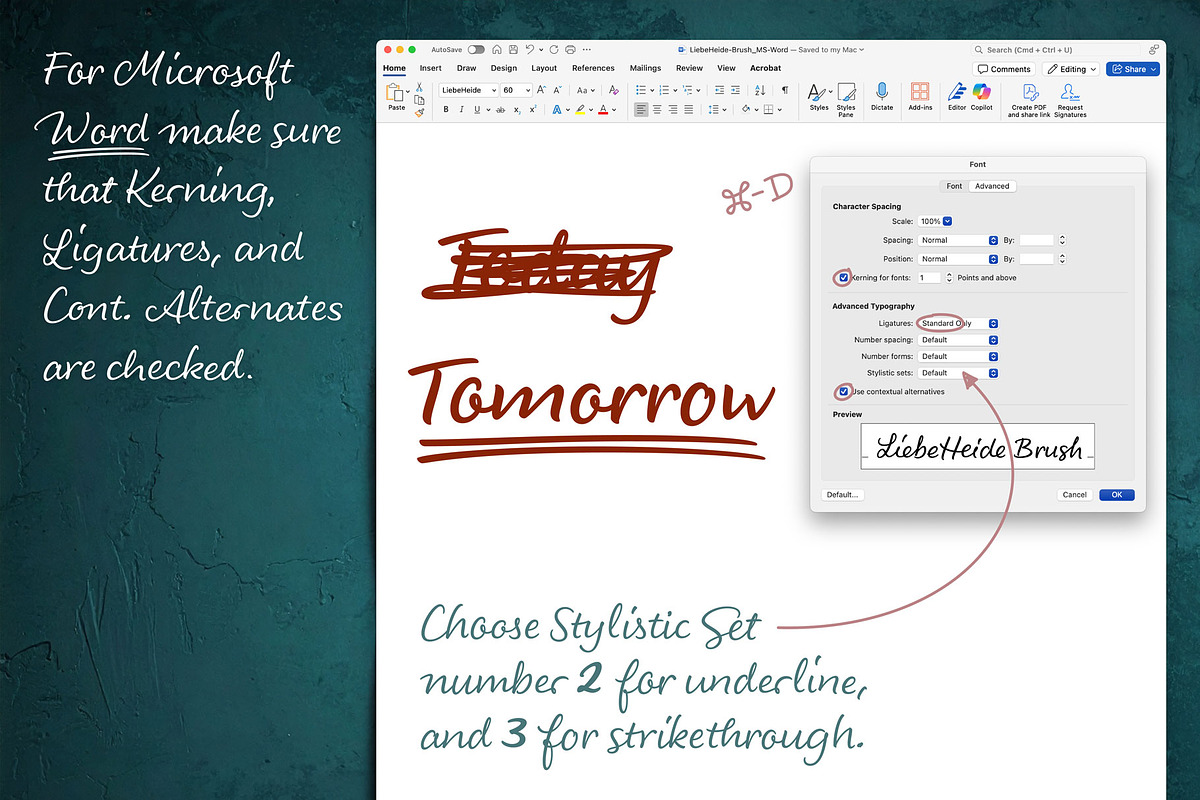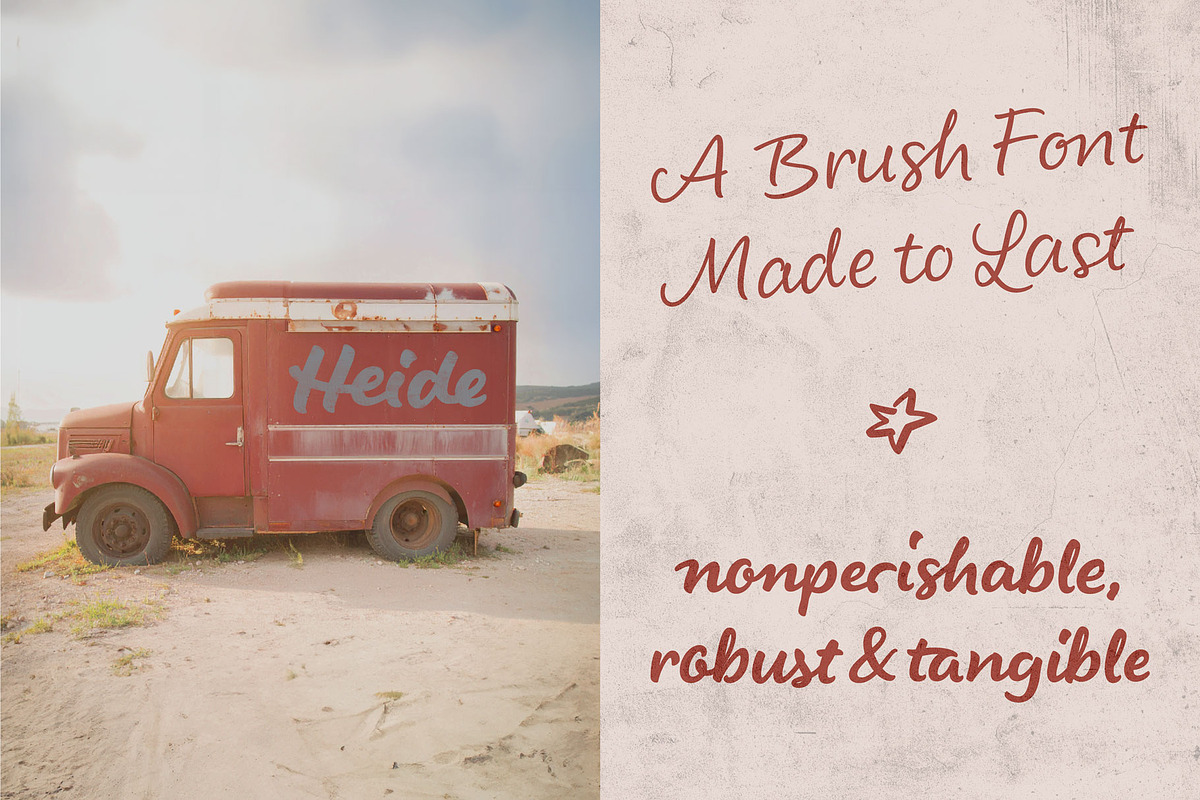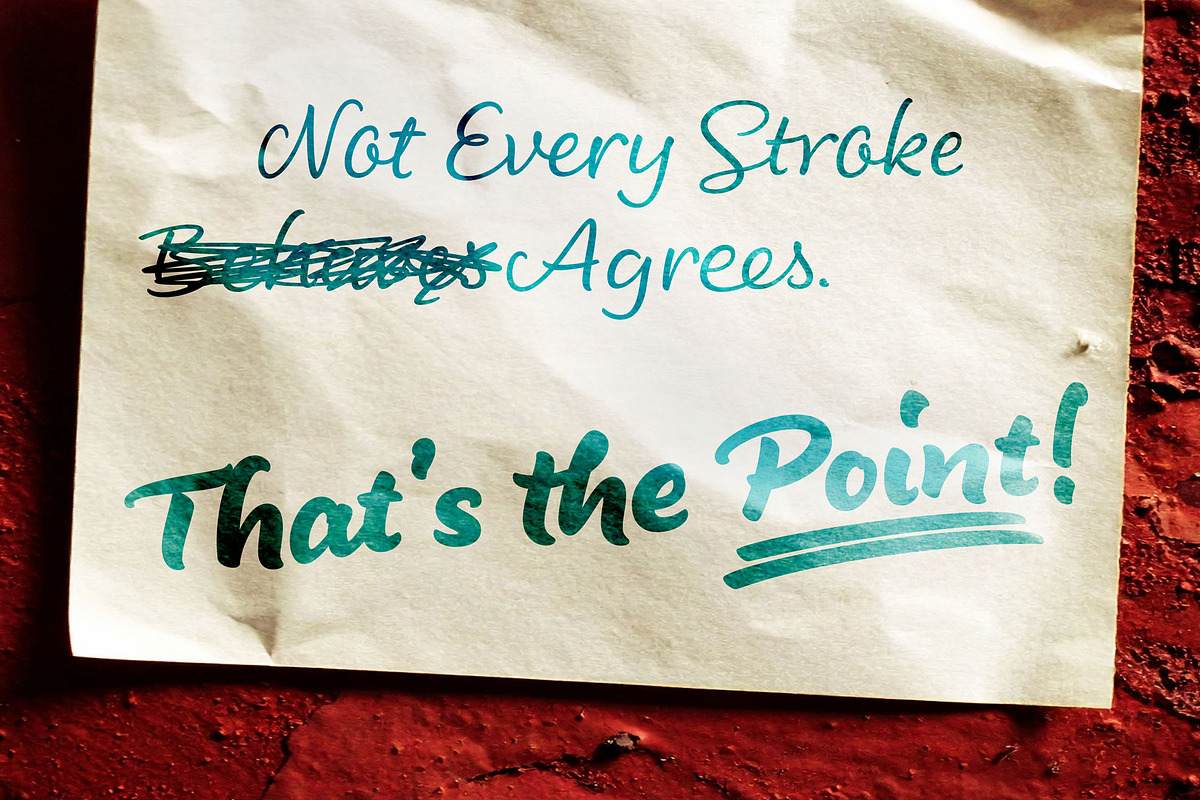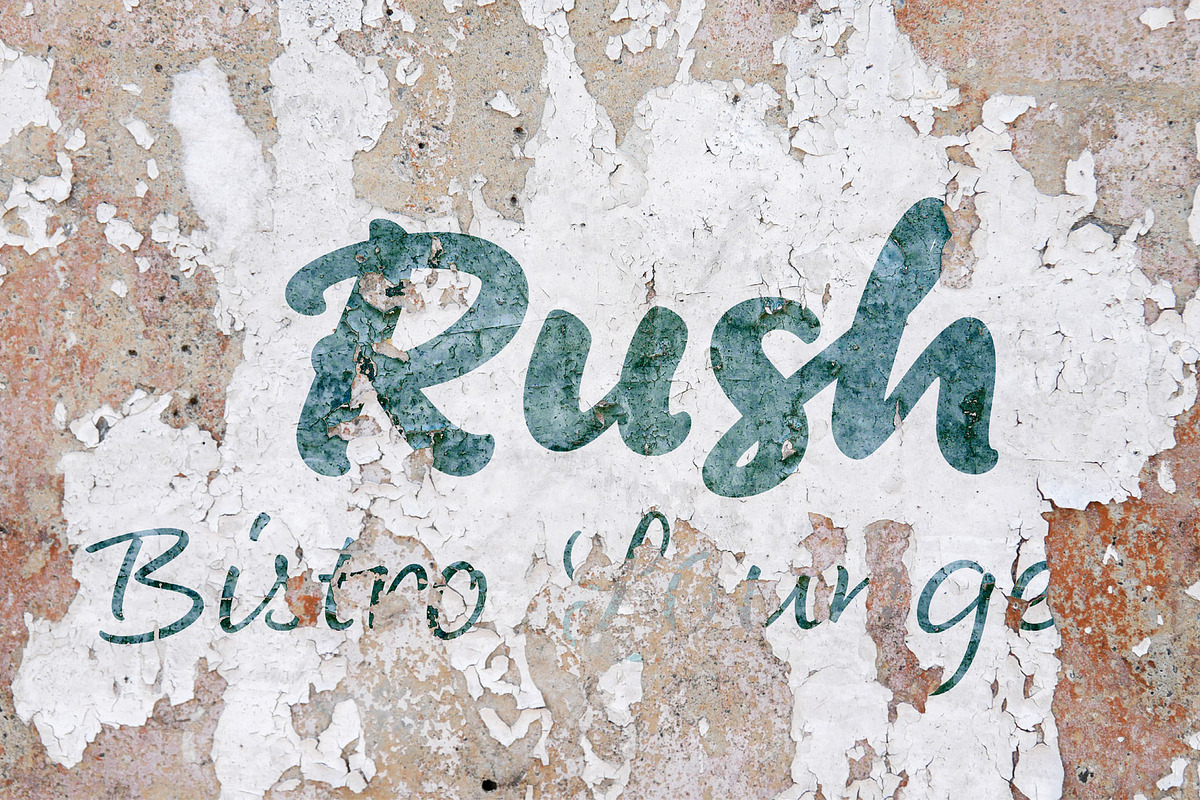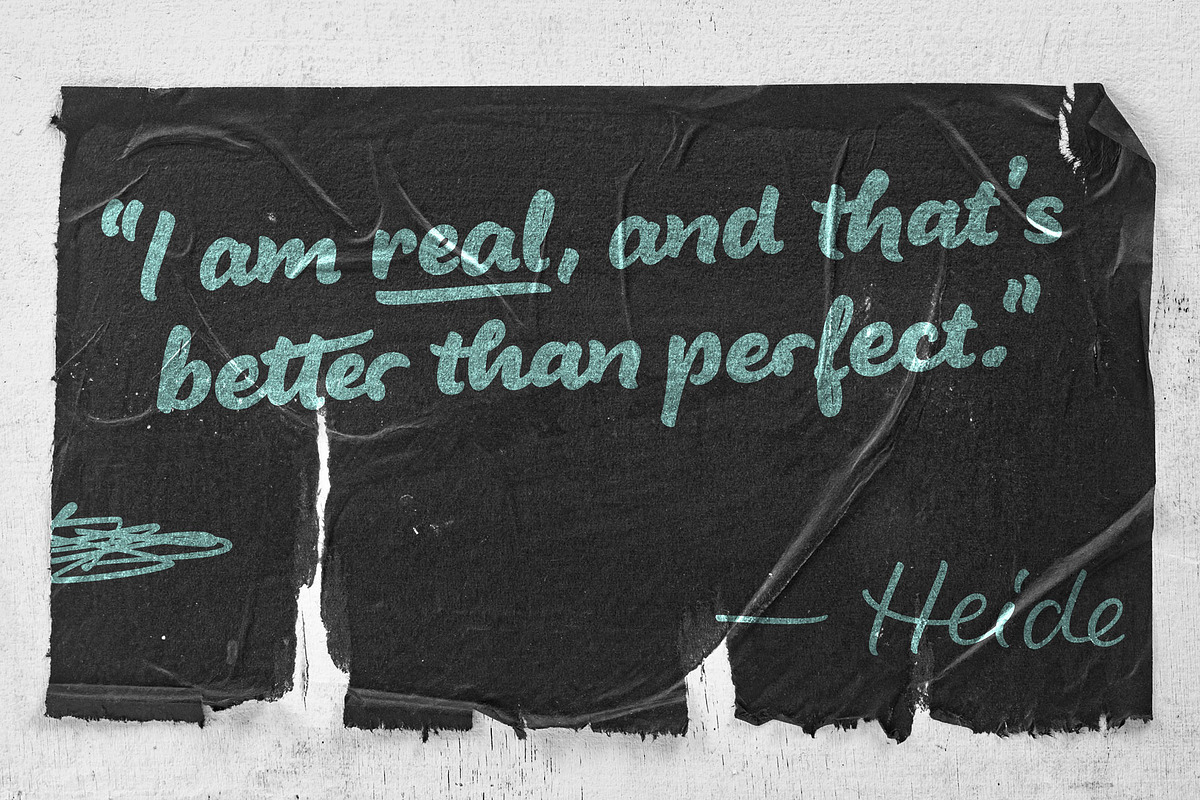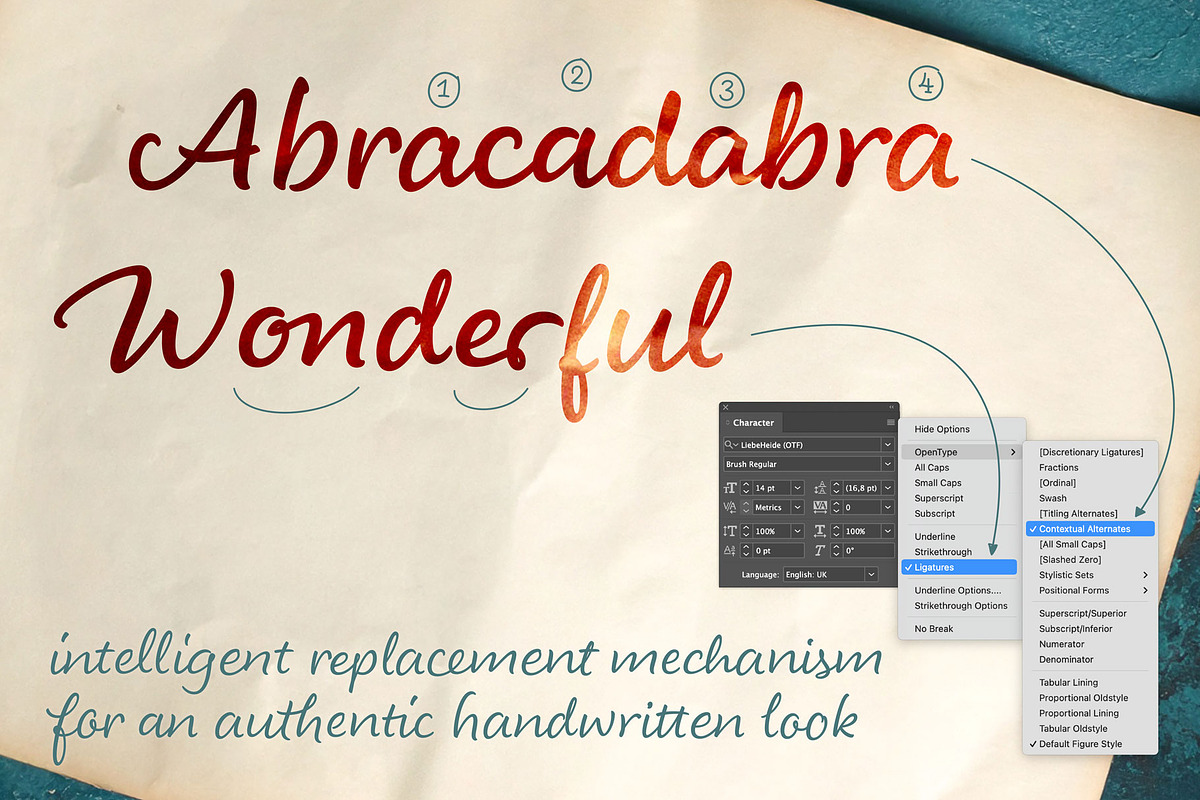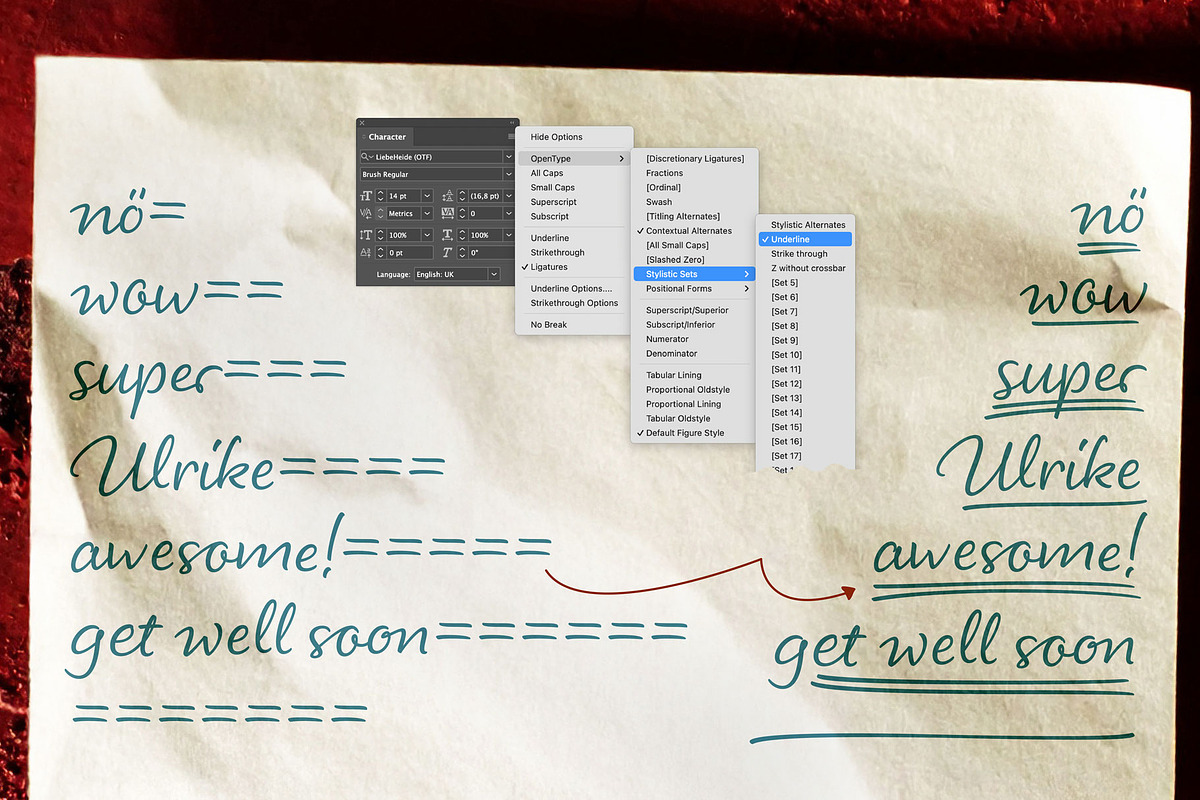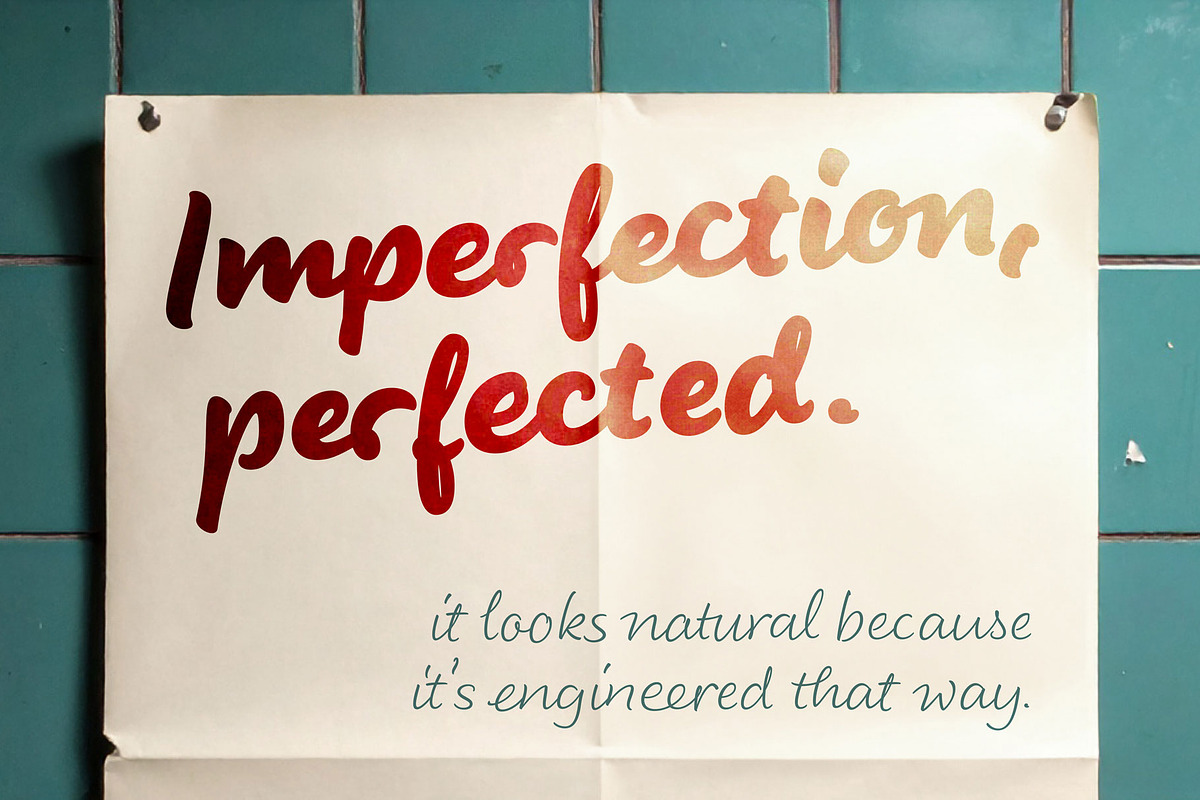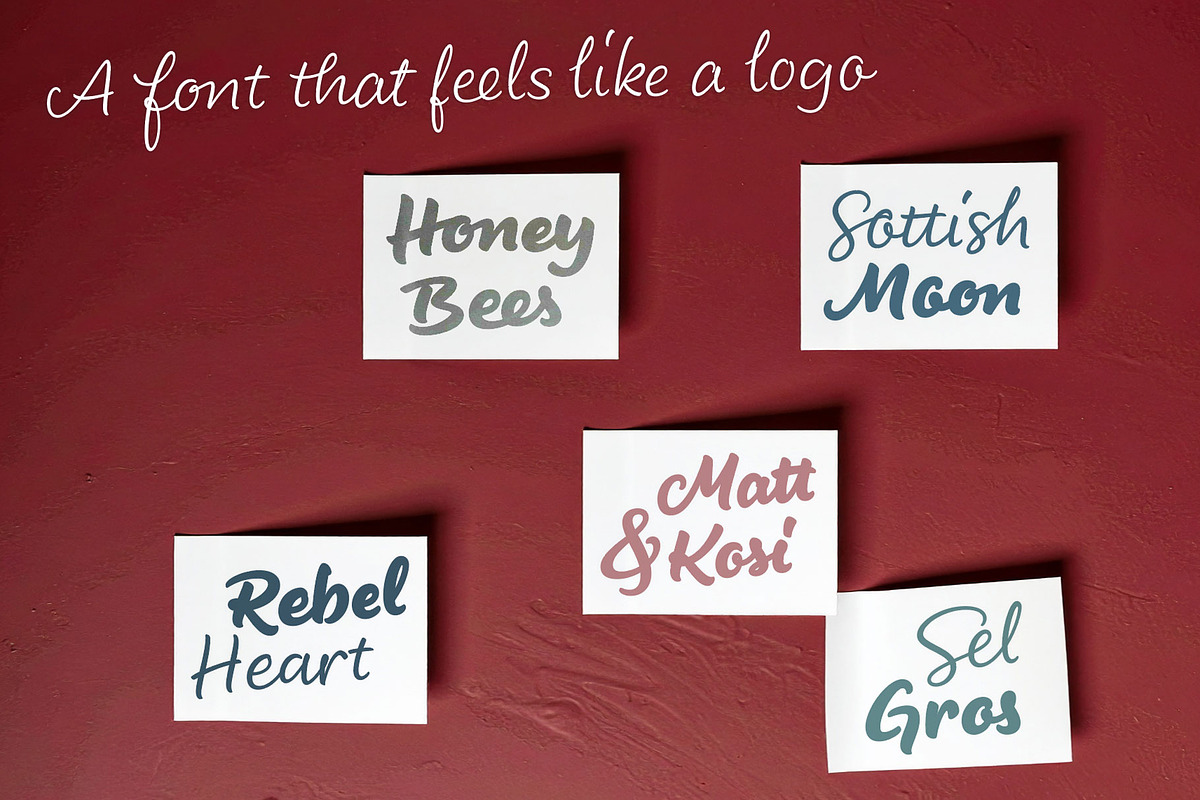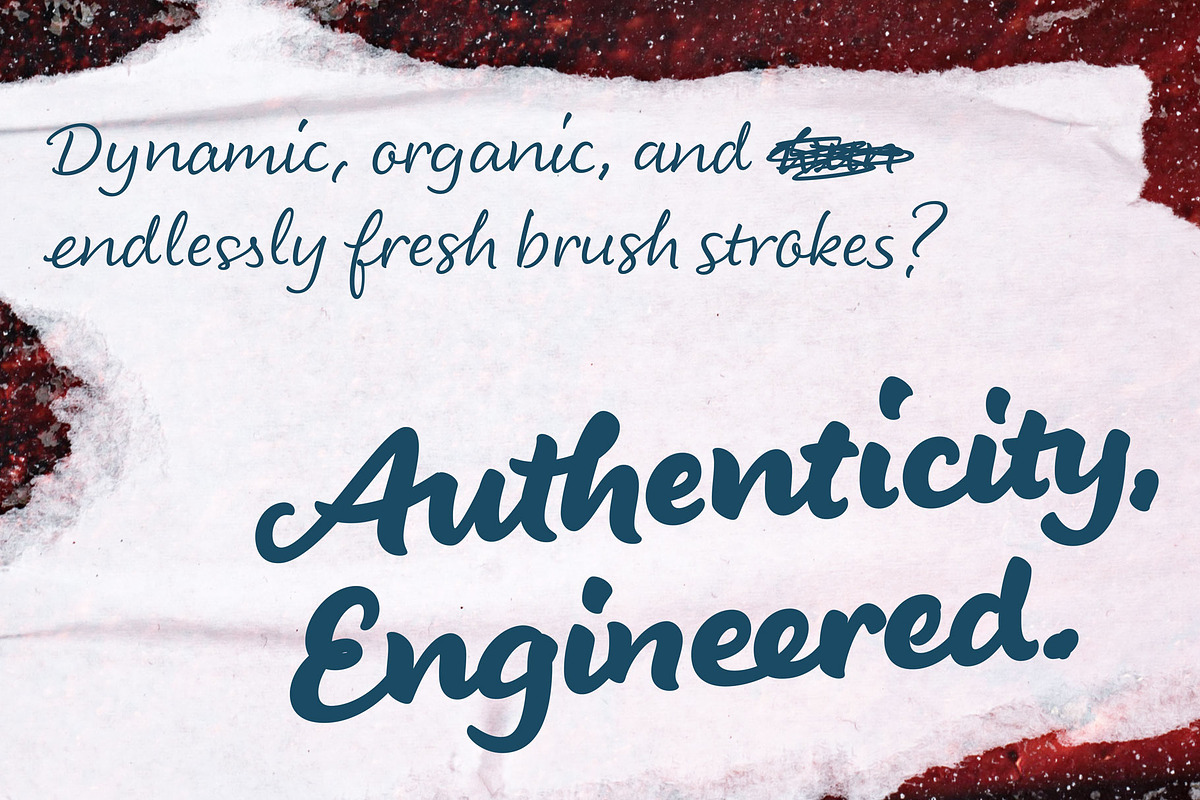
LiebeHeide Brush
This latest addition to the LiebeHeide family is brush lettering made authentic through precision technology: it is powered by a carefully designed system of numerous alternates and ligatures, guided by hidden rules beneath the surface. The result? Words that dance across the page — dynamic, authentic, and endlessly fresh.
With LiebeHeide Brush, your designs will capture the energy of a real brush in motion, while still maintaining the reliability of a smart type system. So whether you’re shouting in bold headlines or whispering in hand-drawn detail, your words will always feel human and alive.